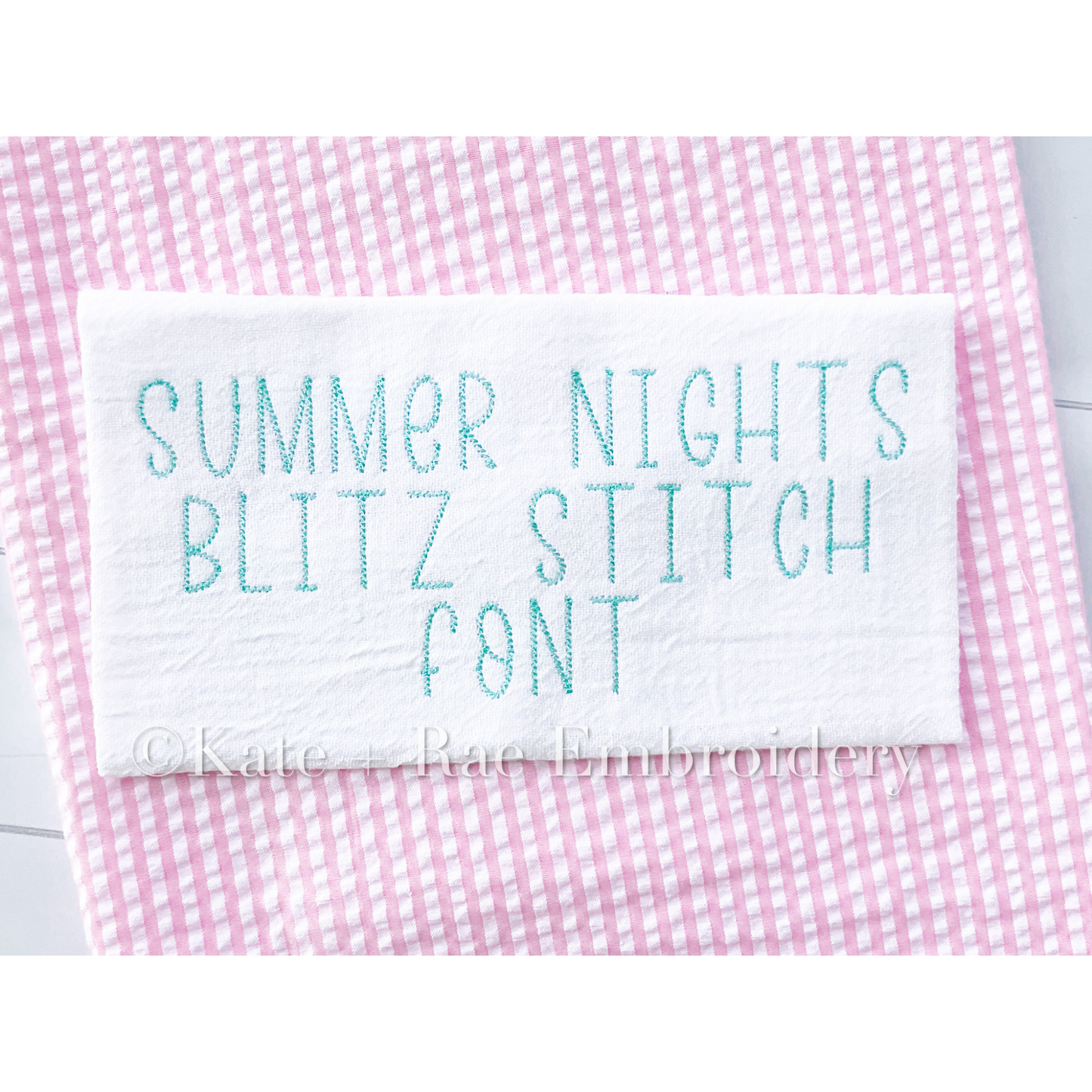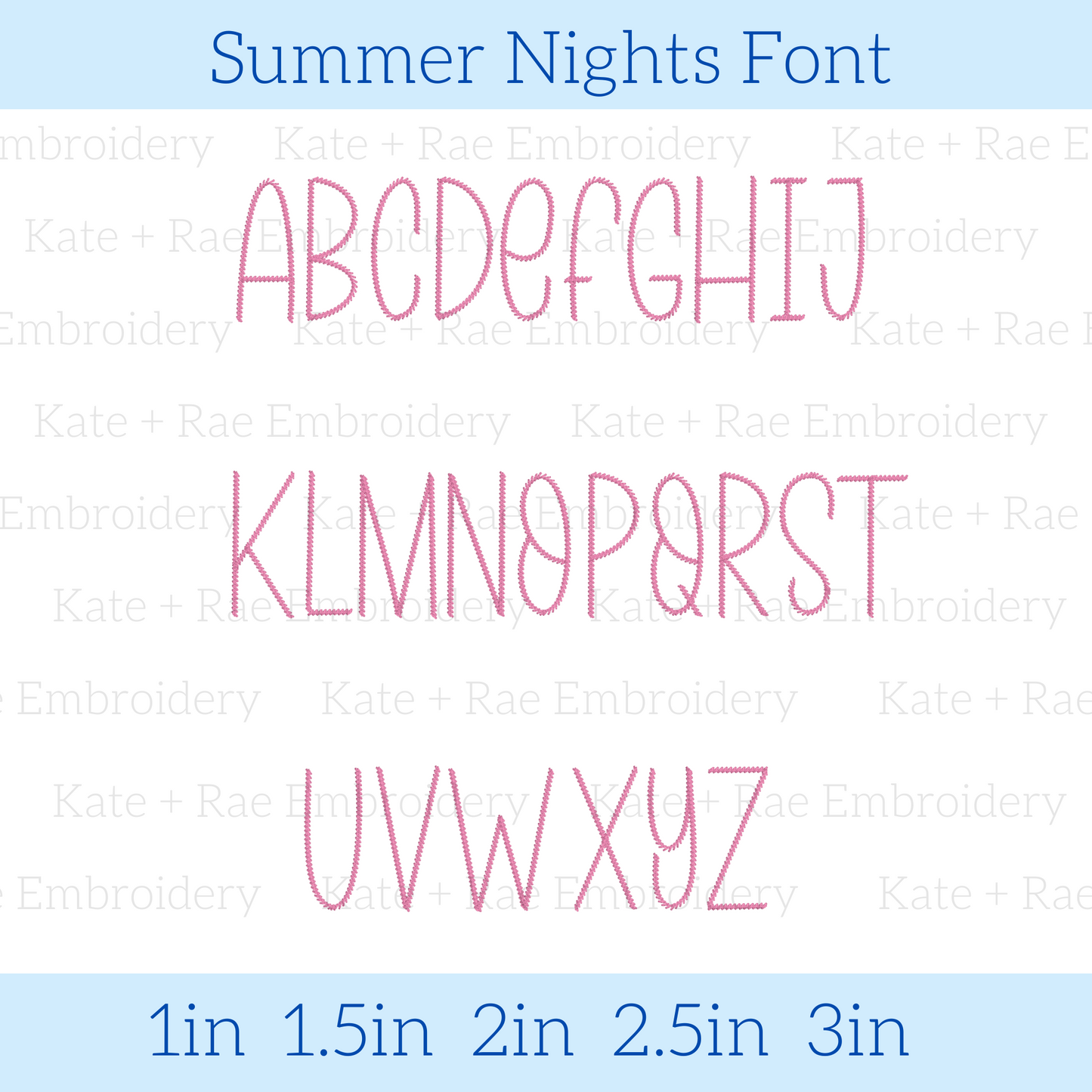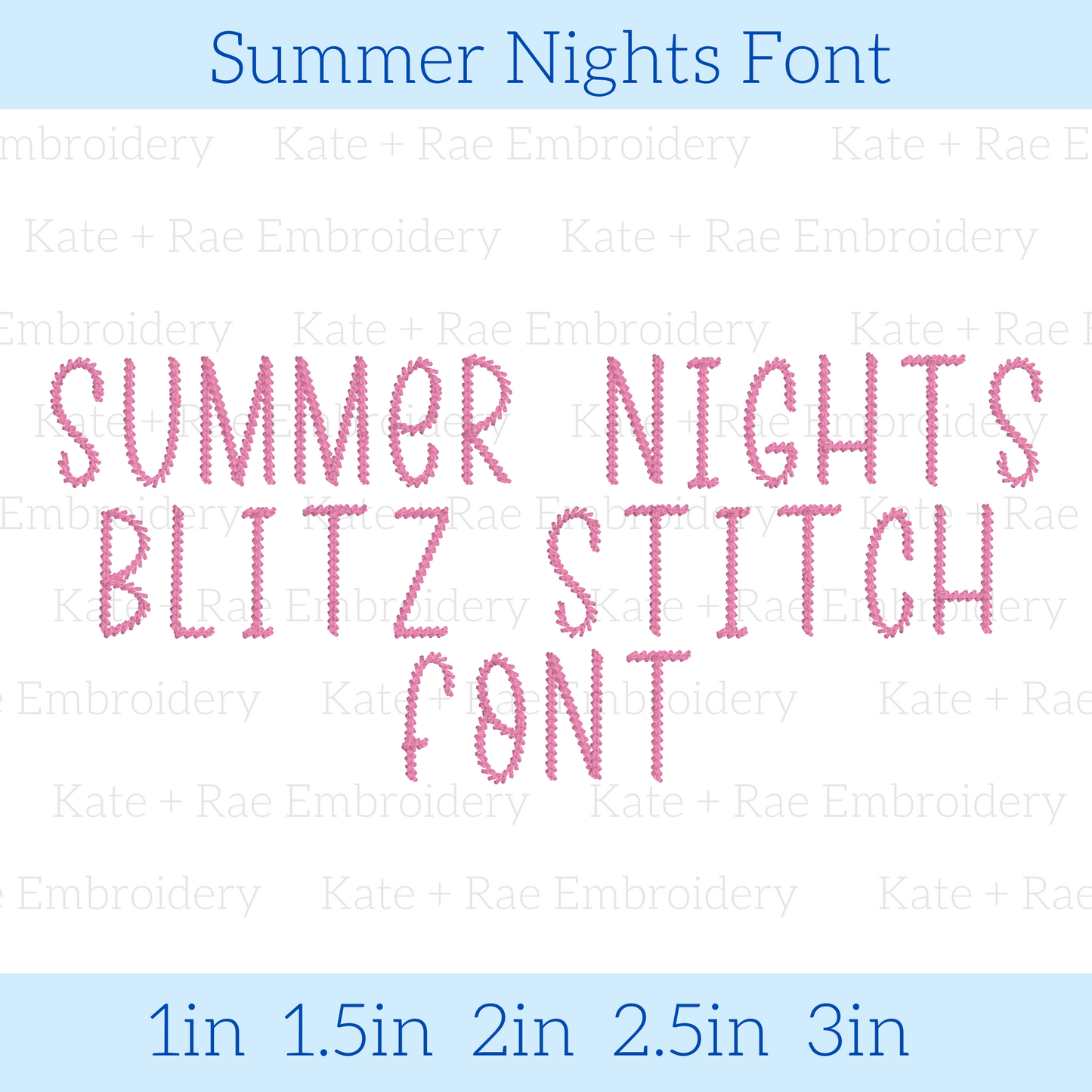
Summer Nights Blitz Stitch Embroidery Font
Meet Summer Nights in our one-of-a-kind blitz stitch, a happy medium between satin and bean stitch! Personalize names, monograms, and kids' outfits.